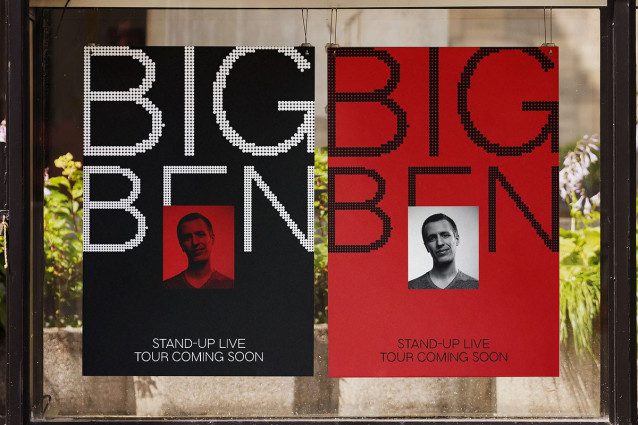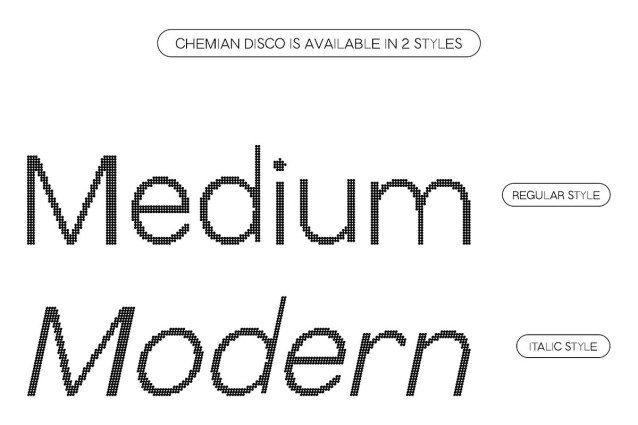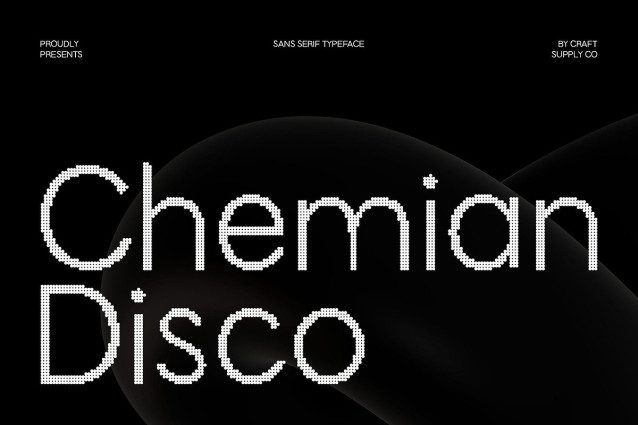
Chemian Disco Font
Chemian Disco Font – Modern Geometry with a Sparkling Edge Modern Sans Serif with Geometric Precision This is a modern sans serif font defined by clean lines, geometric balance, and contemporary structure. Its minimalist form embodies professional clarity while maintaining a sleek, stylish presence. Designed with precision, every letterform captures the essence of modern design simple, refined, and effortlessly versatile.
Disco Effect for Radiant Energy What makes stand out is its dynamic disco effect, adding a lively shimmer and subtle texture to each character. This energetic detail transforms the clean geometry into something vibrant and captivating, perfect for designs that seek to combine modern minimalism with glamorous flair. The sparkle effect enhances visibility, making it ideal for bold, standout typography.
Perfect for Contemporary Creative Use From branding and posters to editorial layouts and modern campaigns, brings sophistication and energy to any visual project. Its sleek sans serif style ensures readability and versatility, while the disco touch introduces a sense of playfulness and luxury.
Where Minimalism Meets Glamour This is captures the perfect balance between structure and sparkle, delivering a fresh, eye-catching aesthetic. Whether you’re designing for a futuristic brand, a fashion campaign, or digital media, this font ensures your message shines with confidence, modernity, and radiant charm.